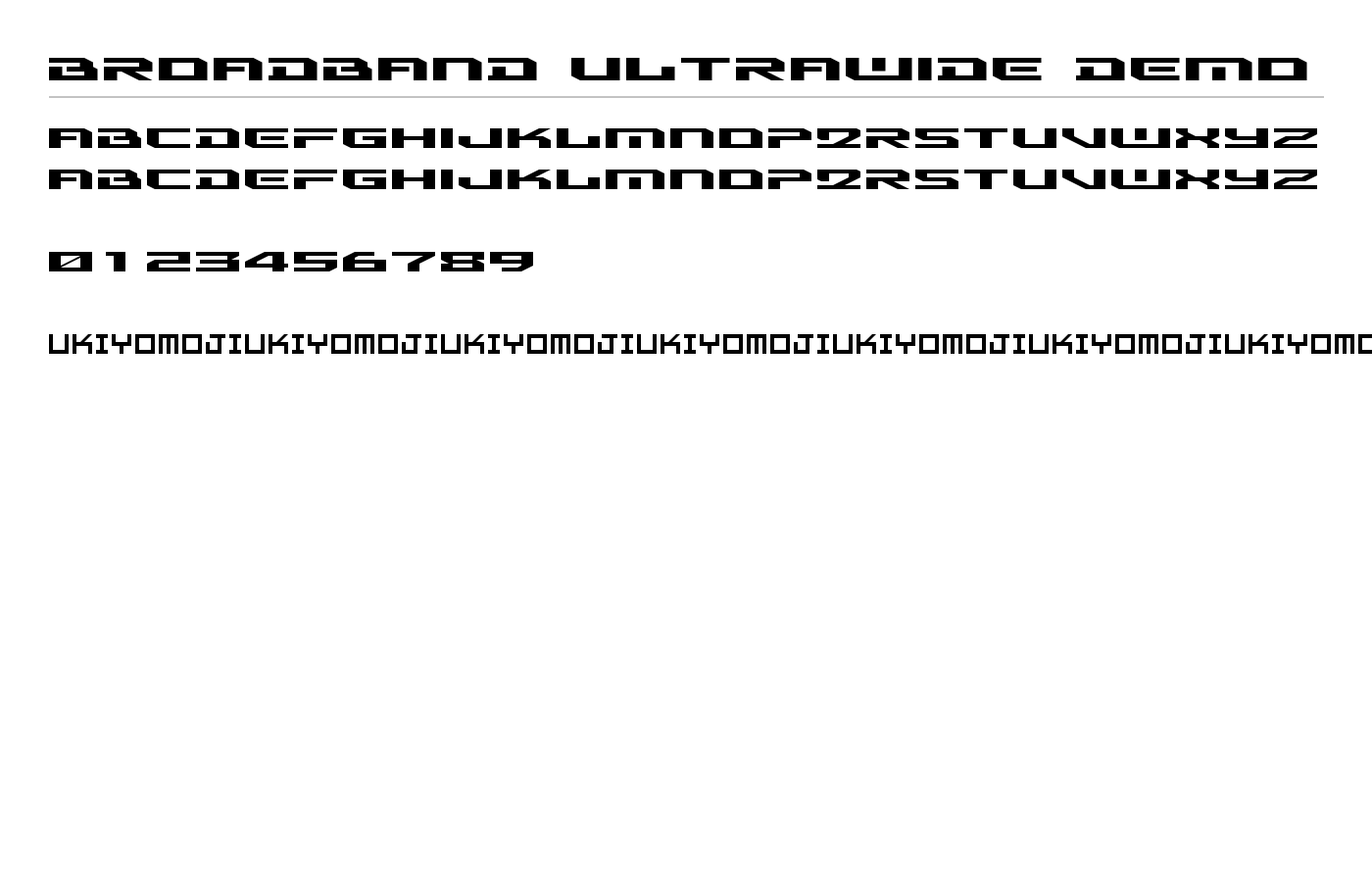
Broadband Ultrawide is a bold, ultrawide sans serif font with a futuristic, tech-inspired style. Its strong geometric shapes and consistent thickness create a modern and impactful feel, making it ideal for headlines, logos, and branding that requires a distinctive, high-tech look. This font works best in large sizes where its unique angular forms can truly stand out.
Broadband Ultrawide DEMO Font
About Broadband Ultrawide DEMO Font